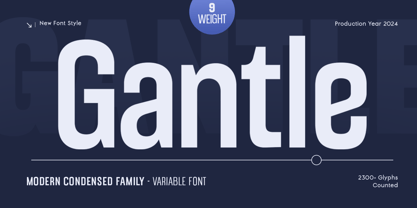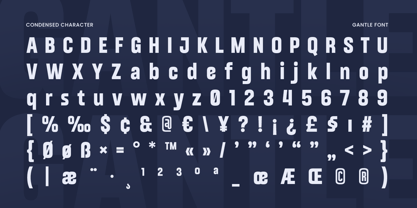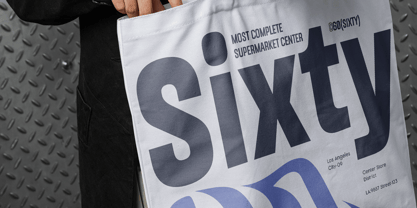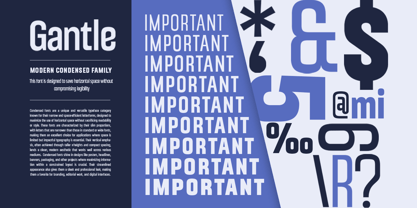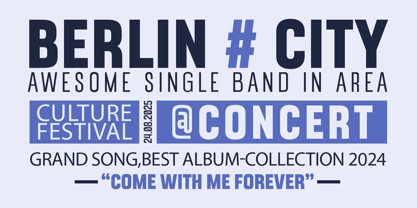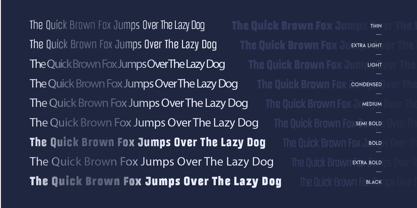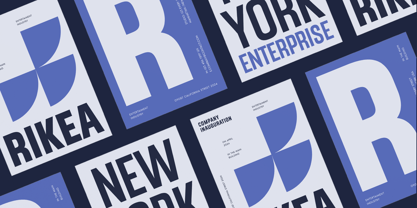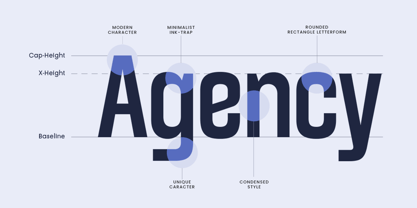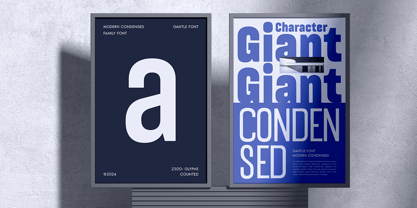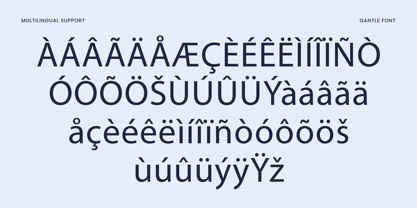
GANTLE is a modern condensed font family built for impactful headlines, strong branding, and sleek editorial layouts. With its bold proportions and clean geometry, GANTLE brings a perfect mix of power and precision to any visual identity.
Ideal for posters, websites, magazines, product packaging, and digital branding, GANTLE delivers clarity and confidence in every weight. Its condensed shape allows more content to fit elegantly within limited space, making it perfect for dynamic and visually tight compositions.
Each weight of the GANTLE font family is crafted for versatility — from slim and refined text to bold and commanding titles. Designed for both print and screen, this typeface ensures legibility while mntning a modern, professional feel.
Features
Complete modern condensed font family with multiple weights
Perfect for branding, posters, magazines, and digital interfaces
Bold, clean, and space-efficient design for maximum impact
Great readability for headlines, banners, and typography systems
Includes uppercase, lowercase, numerals, and punctuation
OpenType features for advanced typographic control
Multilingual Support
Supports a wide range of languages including Afrikaans, Albanian, Asu, Basque, Bemba, Bena, Breton, Chiga, Cornish, Dutch, English, Estonian, Filipino, Finnish, Friulian, Galician, German, Gusii, Indonesian, Irish, Italian, Kabuverdianu, Kalenjin, Kinyarwanda, Luo, Luxembourgish, Luyia, Machame, Makhuwa-Meetto, Makonde, Malagasy, Manx, Morisyen, North Ndebele, Nyankole, Oromo, Portuguese, Quechua, Romansh, Rombo, Rundi, Rwa, Samburu, Sango, Sangu, Scottish Gaelic, Sena, Shambala, Shona, Soga, Somali, Spanish, Swahili, Swedish, Swiss, and many more.
Make your branding bold and space-smart with GANTLE – the ultimate modern condensed font family for professional and impactful design. ✨
Gantle